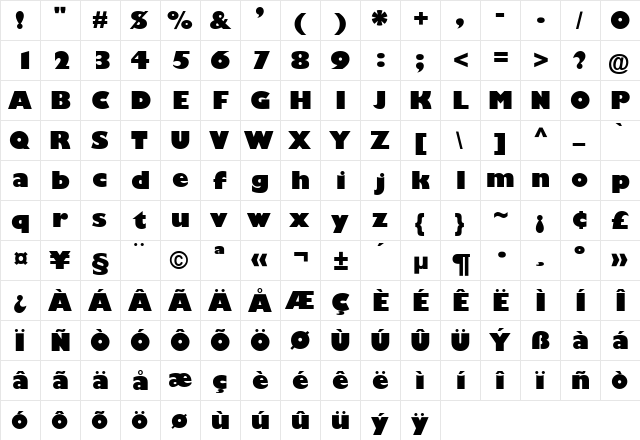
GilbertUltraBold Regular
GilbertUltraBold takes a measured approach to typography — its balanced proportions and neutral character make it a reliable workhorse for both digital and print work. The heavy weight commands attention and anchors typographic hierarchies.